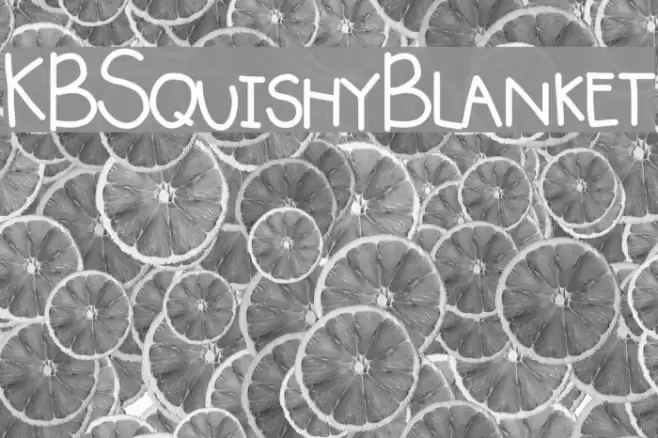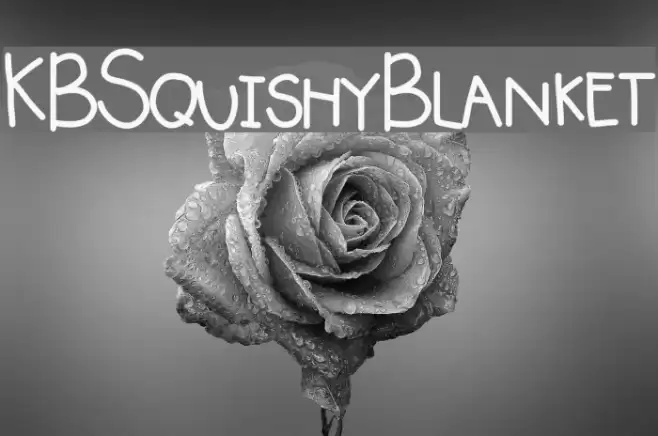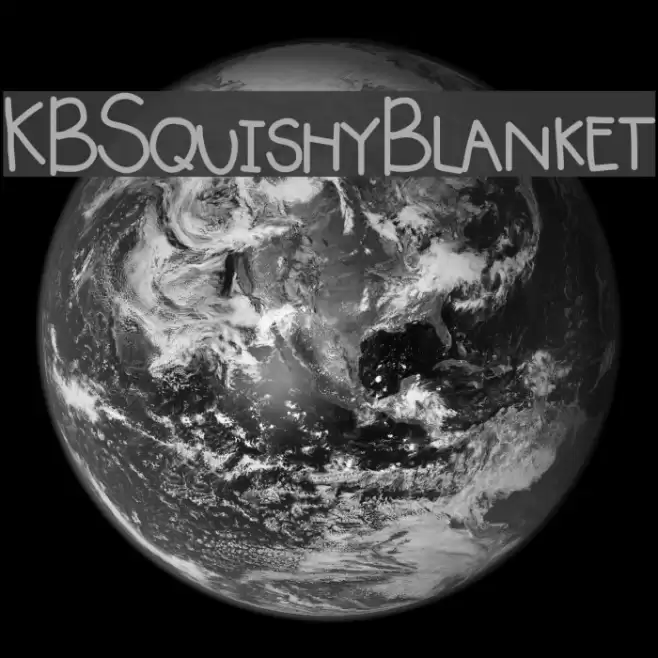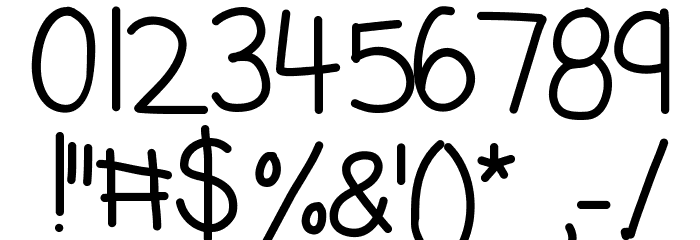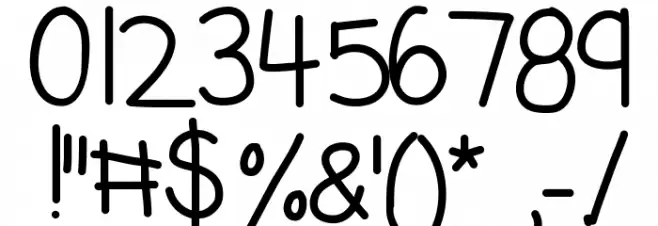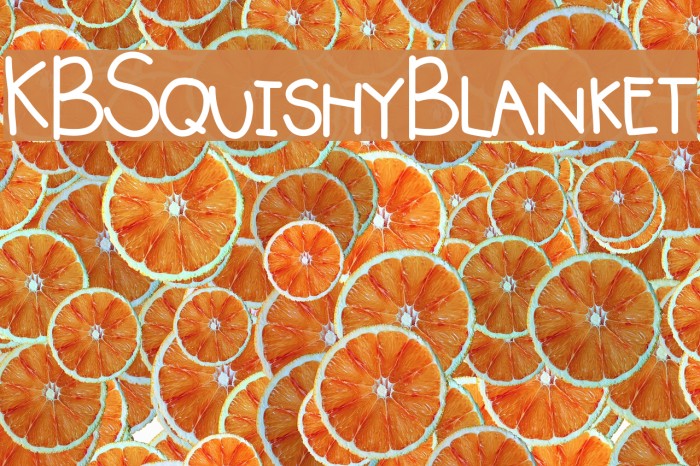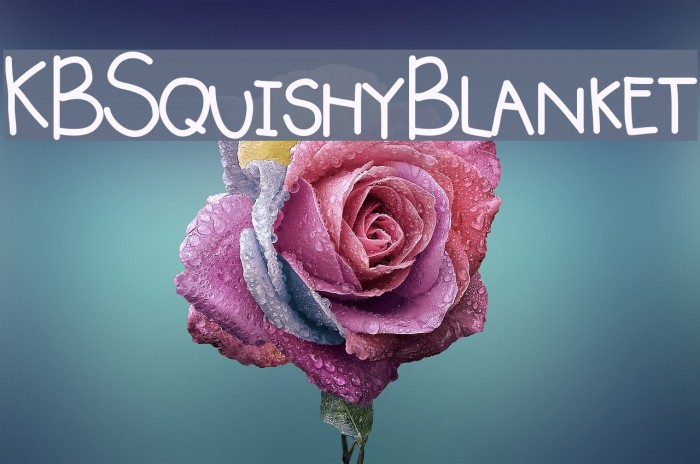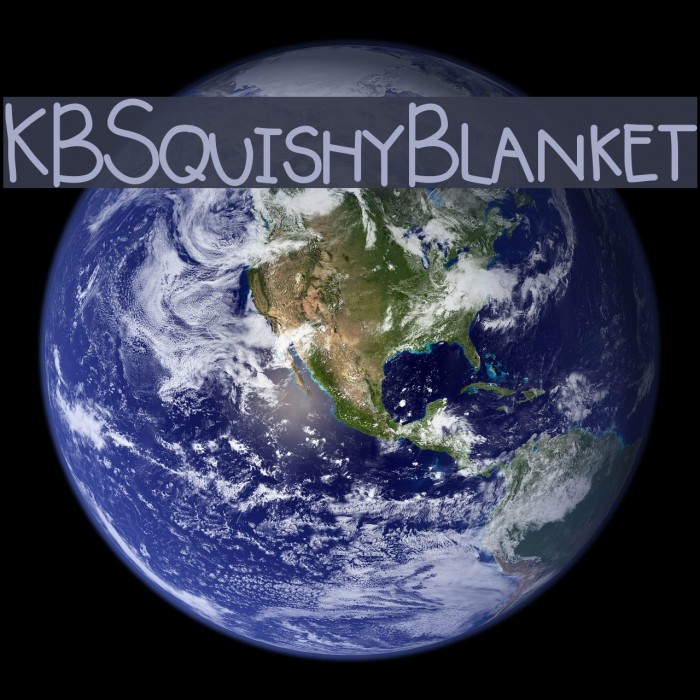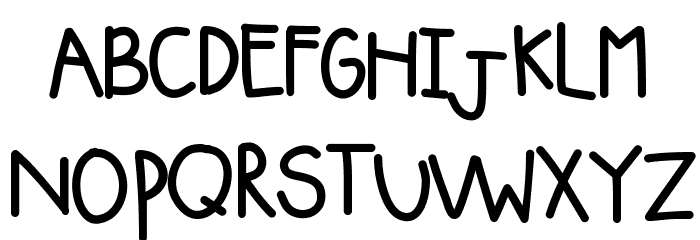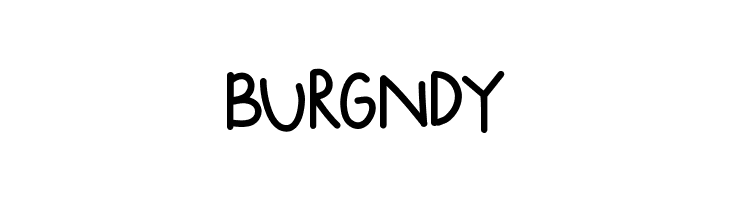
KBSquishyBlanket Font
KBSquishyBlanket Description
This font features a playful and casual handwritten style, characterized by its rounded and slightly irregular letterforms. The uppercase and lowercase letters maintain a consistent flow, with a friendly and approachable appearance. The numerals and special characters complement the overall style, adding to its versatility. The strokes are uniform in weight, contributing to a clean and legible look, making it suitable for informal and creative projects.
A playful, handwritten font with rounded, consistent letterforms from Uncategorized fonts.
- Proposed Projects: Ideal for children's books, greeting cards, playful branding, and casual invitations.
- Overall Style: Casual
- Use Case: Headlines, Logos, Informal Text